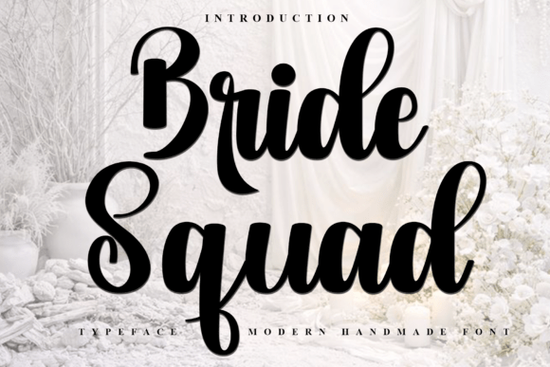
If you're looking for a font that feels like a warm smile on the page, Bride Squad Font might be just what your next project needs. It’s a casual, hand-drawn typeface with soft, rounded strokes that give it a friendly, approachable vibe perfect for personal invitations, social media posts, or creative crafts. Whether you’re designing a bridal shower card or adding charm to a digital greeting, this font brings a playful touch without feeling overly loud.
What makes Bride Squad Font stand out?
Bride Squad isn’t just another script font it has personality. Its natural, uneven lines mimic real handwriting, which gives it authenticity and warmth. You’ll notice how each letter flows smoothly, almost as if someone sketched it with care. This handmade quality works especially well in designs where you want to feel personal and heartfelt.
Where can you use Bride Squad Font?
- Wedding invitations and save-the-date cards – The friendly tone fits perfectly with modern, relaxed weddings.
- Social media graphics – Use it for Instagram stories, Pinterest pins, or Facebook event posts.
- Print-on-demand products – Ideal for T-shirts, mugs, and tote bags with fun, light-hearted messages.
- Personal stationery and journals – Great for planners, thank-you notes, or doodle pages.
It’s also a great fit for small businesses that want to communicate in a down-to-earth way think boutique shops, wedding planners, or lifestyle bloggers who value authenticity over polish.
How does it compare to other similar fonts?
If you’ve explored fonts like elegant handwriting styles, you’ll notice Bride Squad leans more toward casual charm than formal grace. It’s less structured than something like Stanley Font, which has a more refined, classic look. Meanwhile, it’s more playful than Brother Font, which tends to be sharper and bolder. And while Sweet Marigold Font shares a whimsical feel, Bride Squad feels more balanced less sweet, more grounded.
For those who love summer-themed designs, the laid-back energy of Bride Squad pairs well with pastel colors, floral patterns, and light textures. If you’re into summer beauty aesthetics, this font could be a natural addition to your toolkit.
Is it easy to use for beginners?
You don’t need advanced skills to make something beautiful with this font. Even a simple phrase like “Let’s celebrate” or “Best friends forever” can feel meaningful when set in Bride Squad.
Use Bride Squad Font when you want your design to feel human, genuine, and a little joyful. It’s not meant to impress with complexity it’s meant to connect. Whether you’re a crafter, a small business owner, or just someone who loves making things by hand (digitally or otherwise), this font adds warmth without effort.
Try pairing it with clean sans-serif fonts for contrast, or layer it over soft backgrounds for a cozy effect. Keep your color palette light and airy to match its vibe.
- ✓ Test the font in different sizes before finalizing your design
- ✓ Use it on both digital and print projects works well in both
- ✓ Explore alternate glyphs in your design app to add subtle variety
- ✓ Pair with illustrations or icons for extra visual interest
- ✓ Save a version with just the main text if you need simpler layouts
Give Bride Squad Font a try on your next personal or client project it might just become your go-to choice for anything that calls for a little kindness in typography.